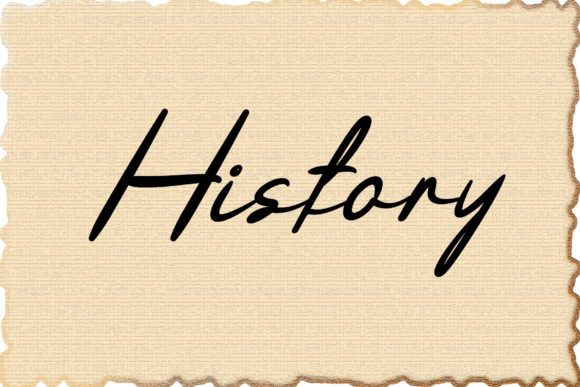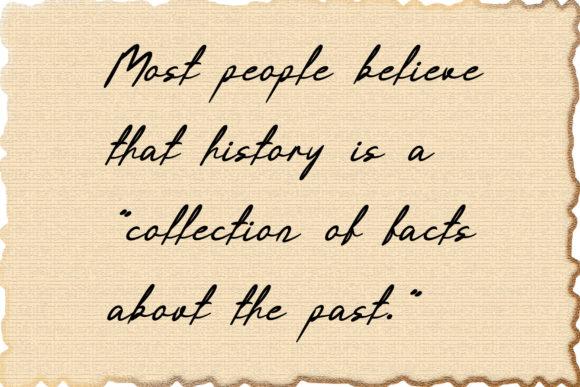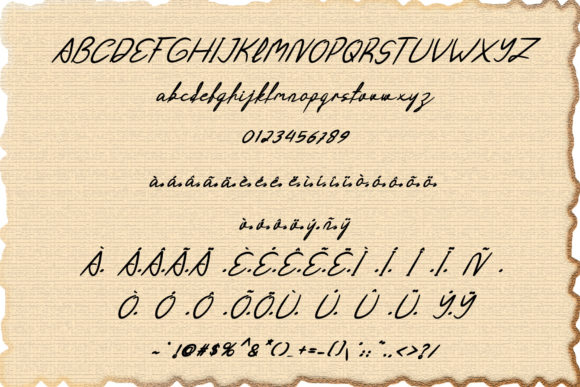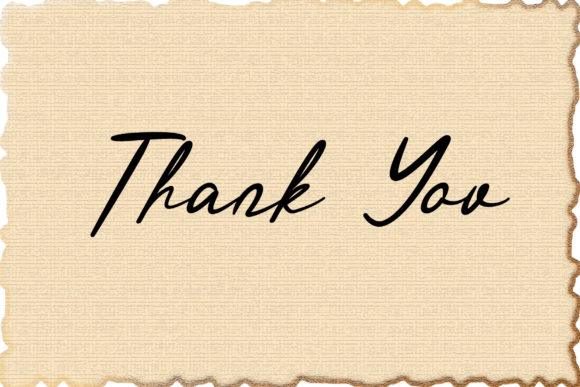
History Font
About History Font
History is a neat, cursive and delicate handwritten font. It is the best choice for creating eye catching logos, branding and quotes. Add it confidently to your projects, and you will love the results.